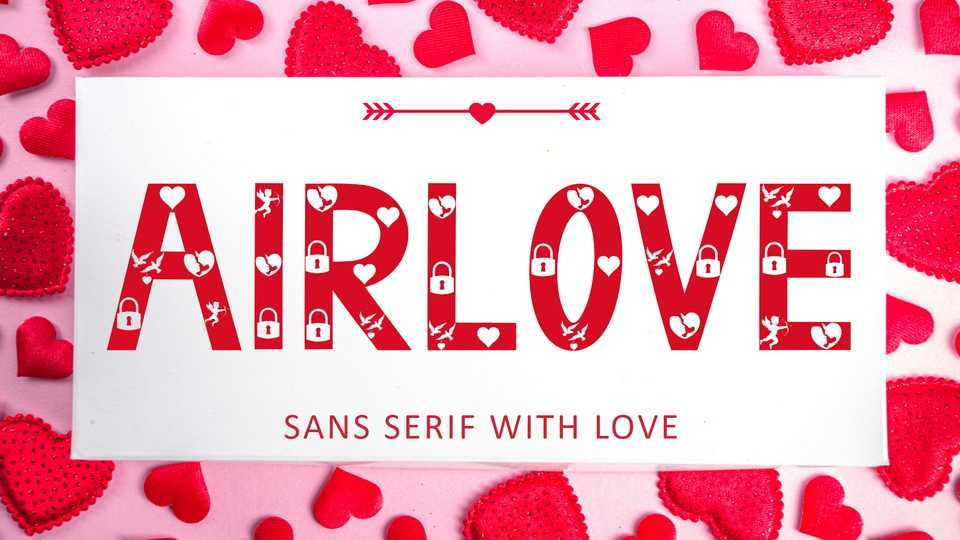
Download Airlove font, a decorative sans serif typeface combined with a heart, a padlock, a pair of birds and a couple of lovers. Airlove font is very elegant, it can be used for weddings, photography, valentines, invitations, product promotions, and others.